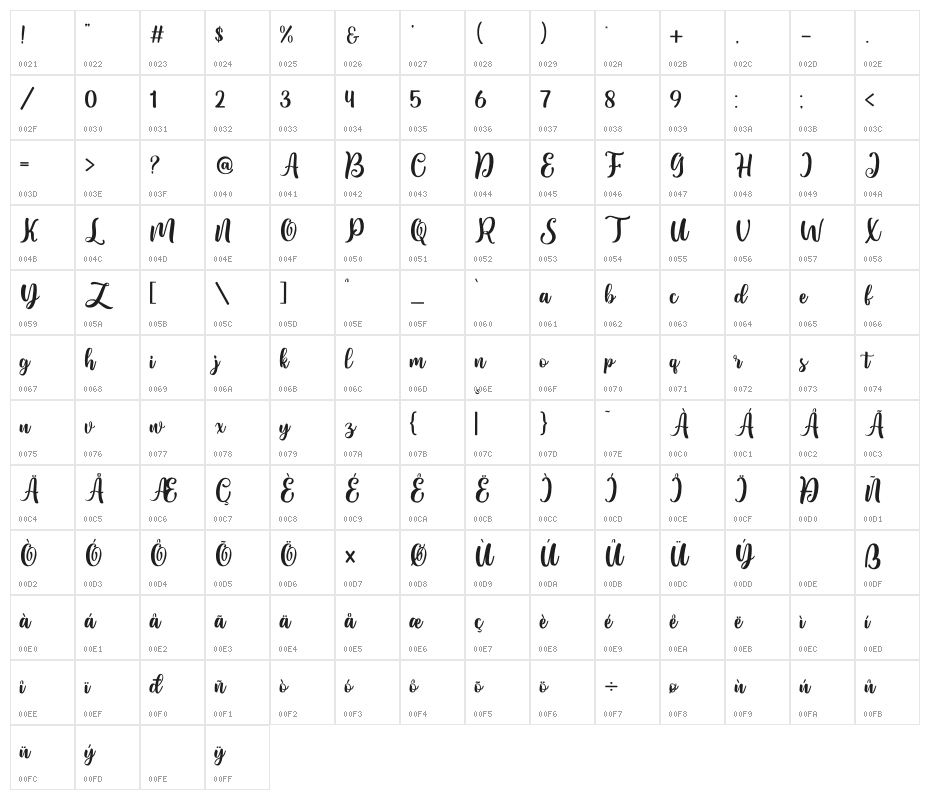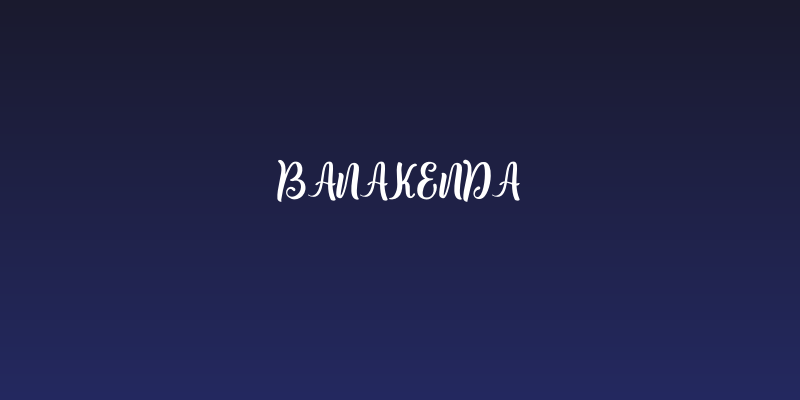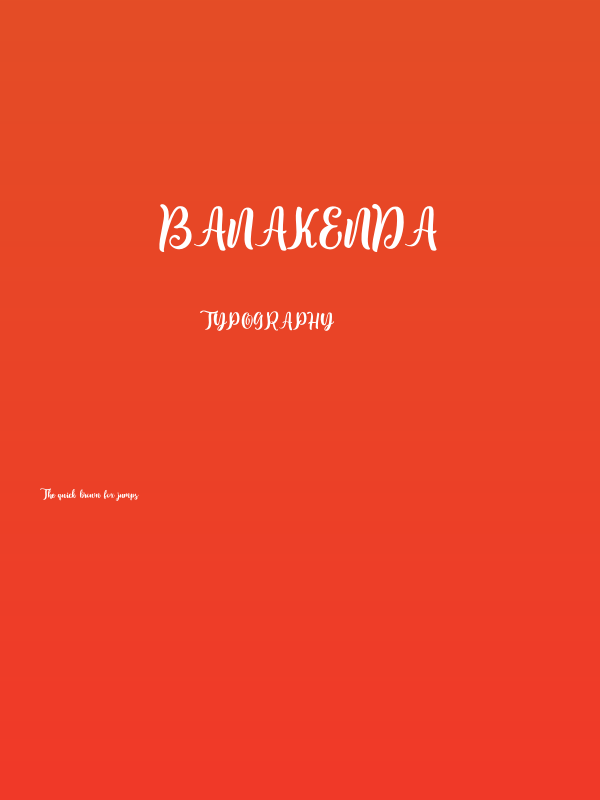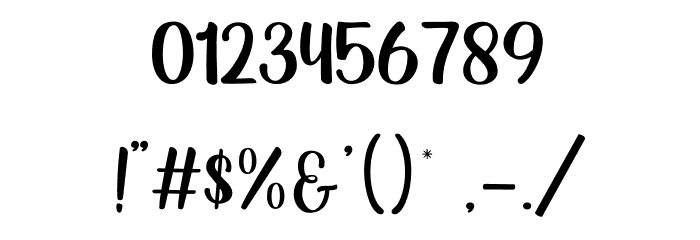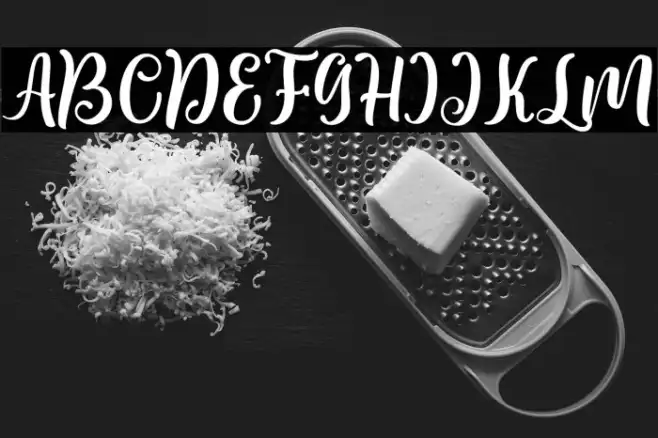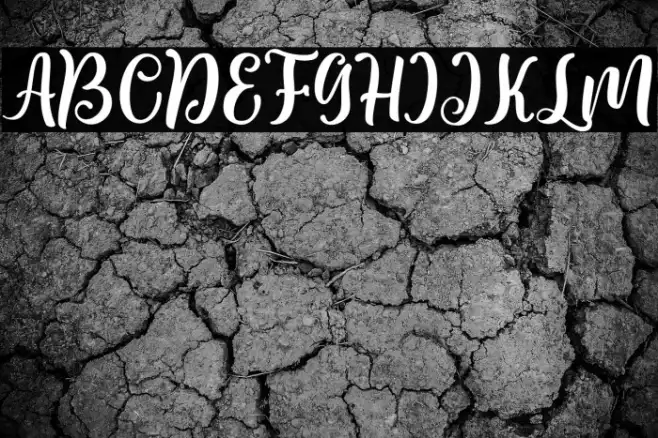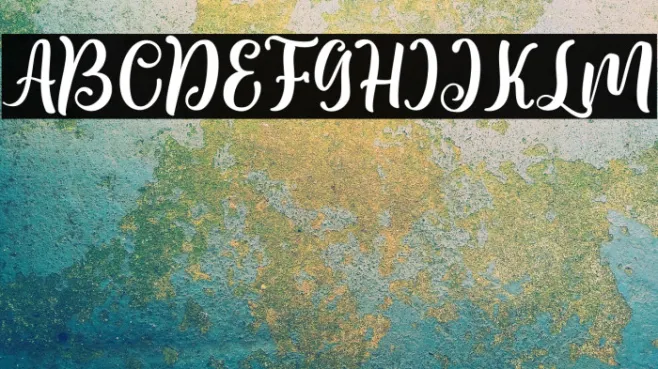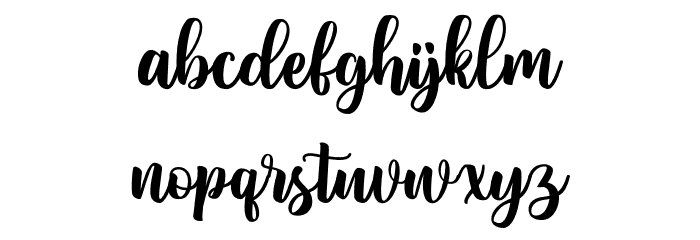
Banakenda Font
Banakenda Description
This font features a flowing, cursive style that combines elegance with a playful touch. The uppercase letters are bold and sweeping, with distinctive loops and flourishes that add a sense of movement and grace. The lowercase letters maintain a consistent style, with smooth curves and a slightly condensed form that enhances readability. Numbers and special characters are crafted with the same attention to detail, ensuring a cohesive look across all elements. The overall design is both sophisticated and approachable, making it suitable for a variety of applications.